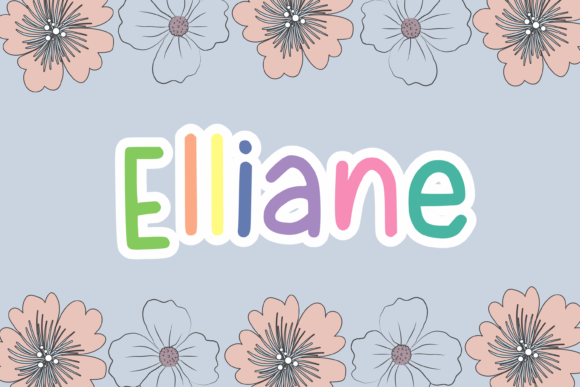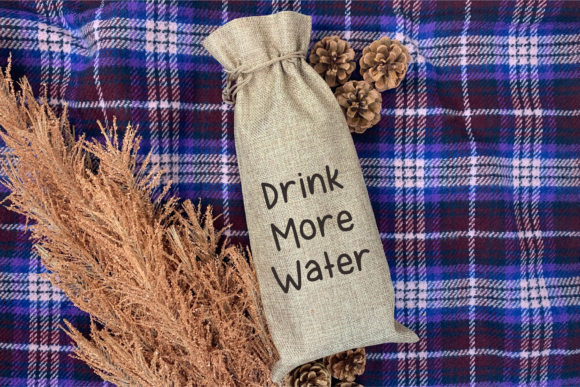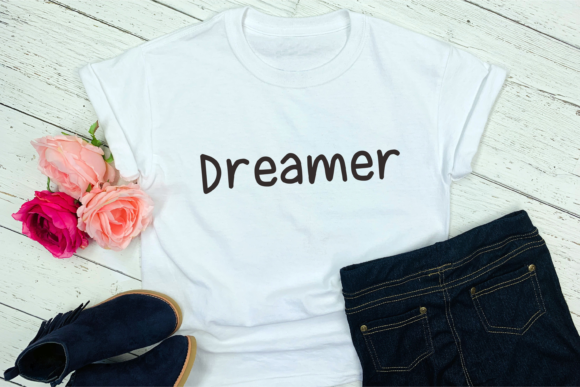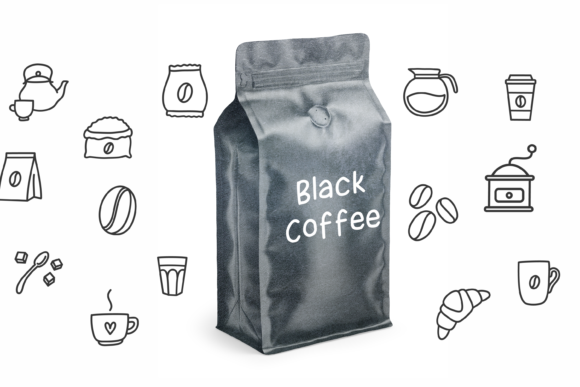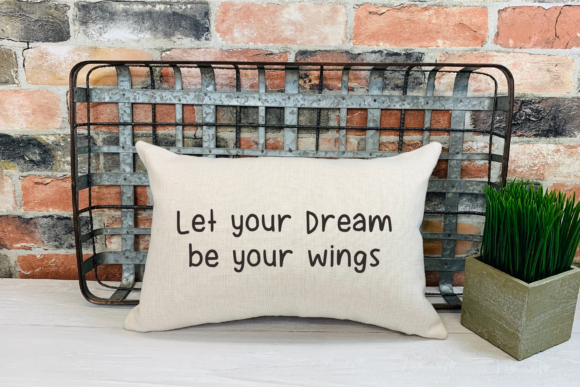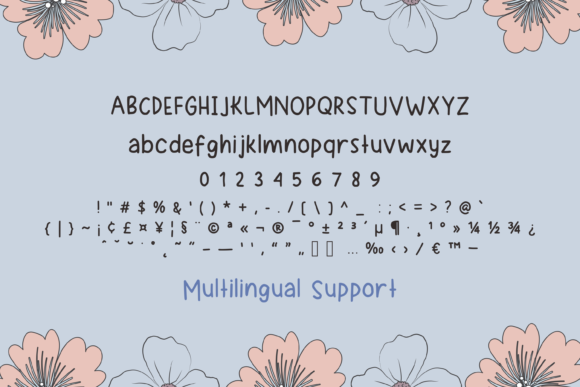
About Elliane Font
Elliane has a simple typography and brings its own unique and friendly style to any design project. This font is perfect for children themed designs, especially when combined with bright colors.